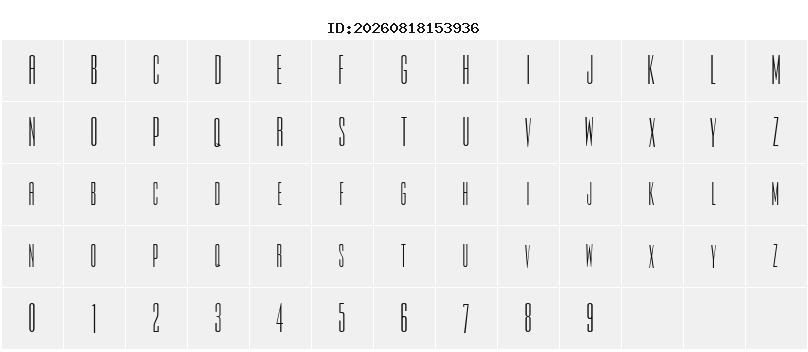
Slim-Jim Preview
• Font Name: Slim-Jim
• Full Font Name: Slim-Jim Normal
About Slim-Jim.ttf
Slim-Jim.ttf is a modern, elegant sans-serif font designed for ultimate readability and visual harmony. Perfect for branding, headlines, web design, and print materials.